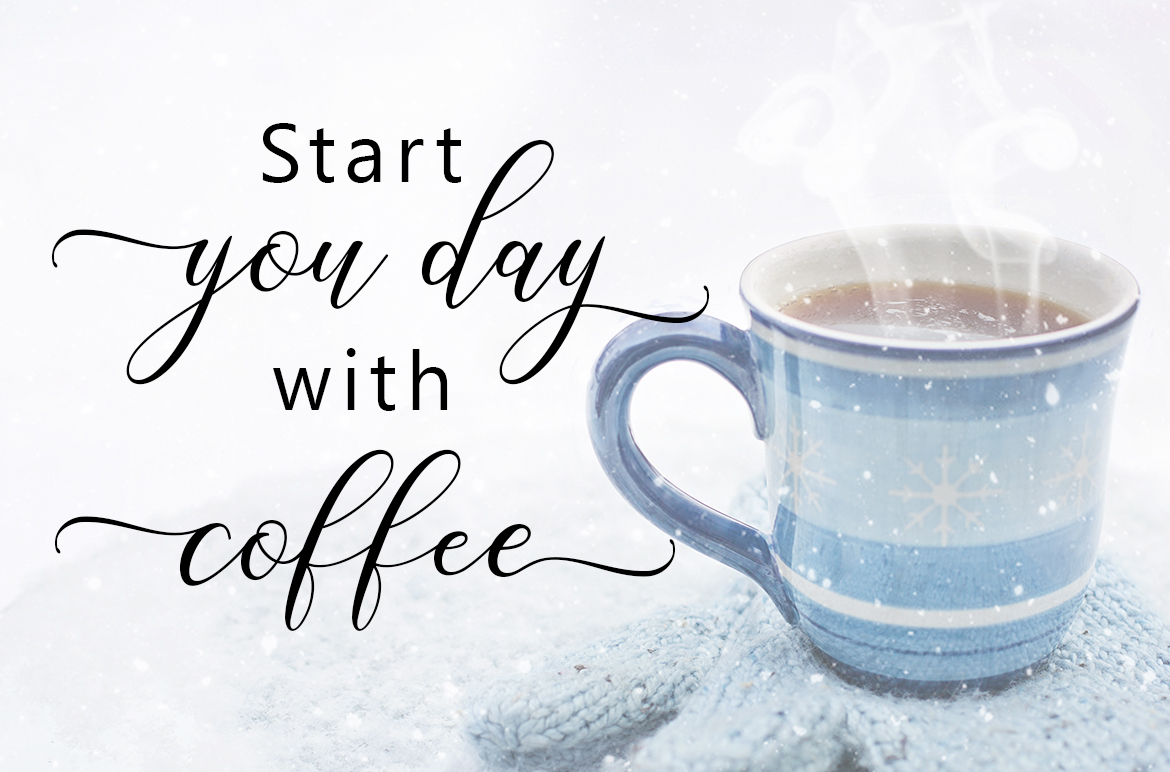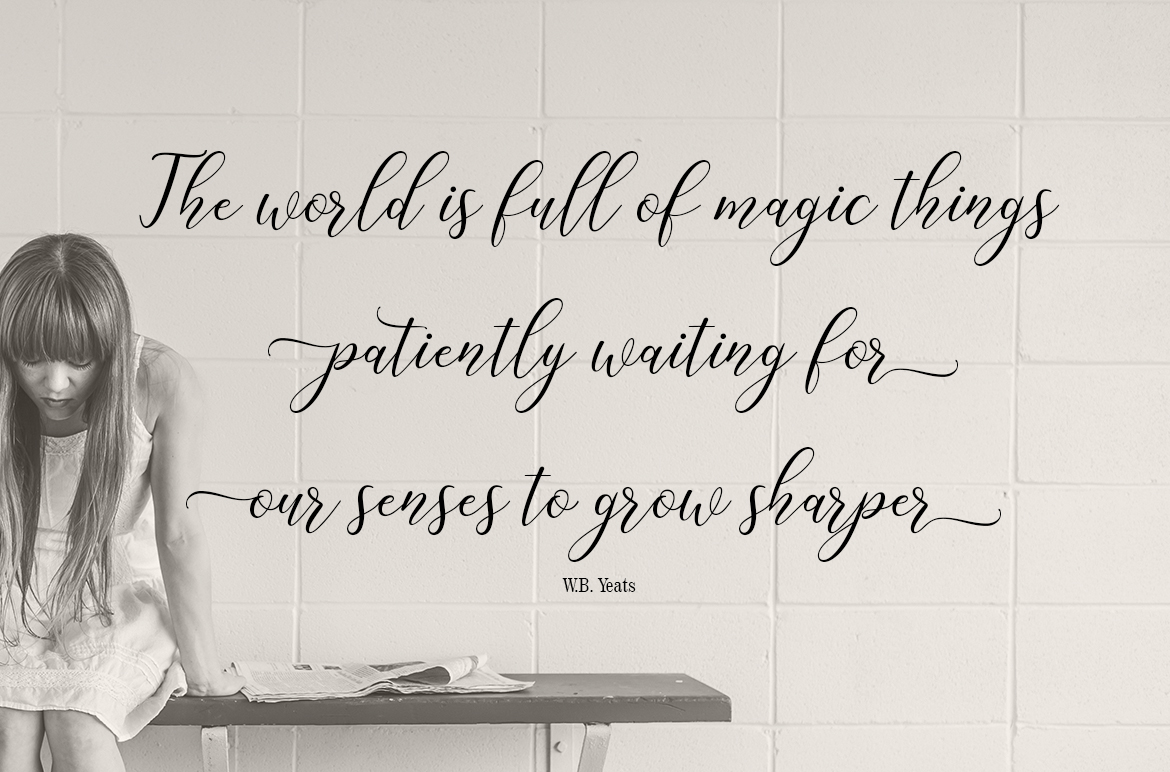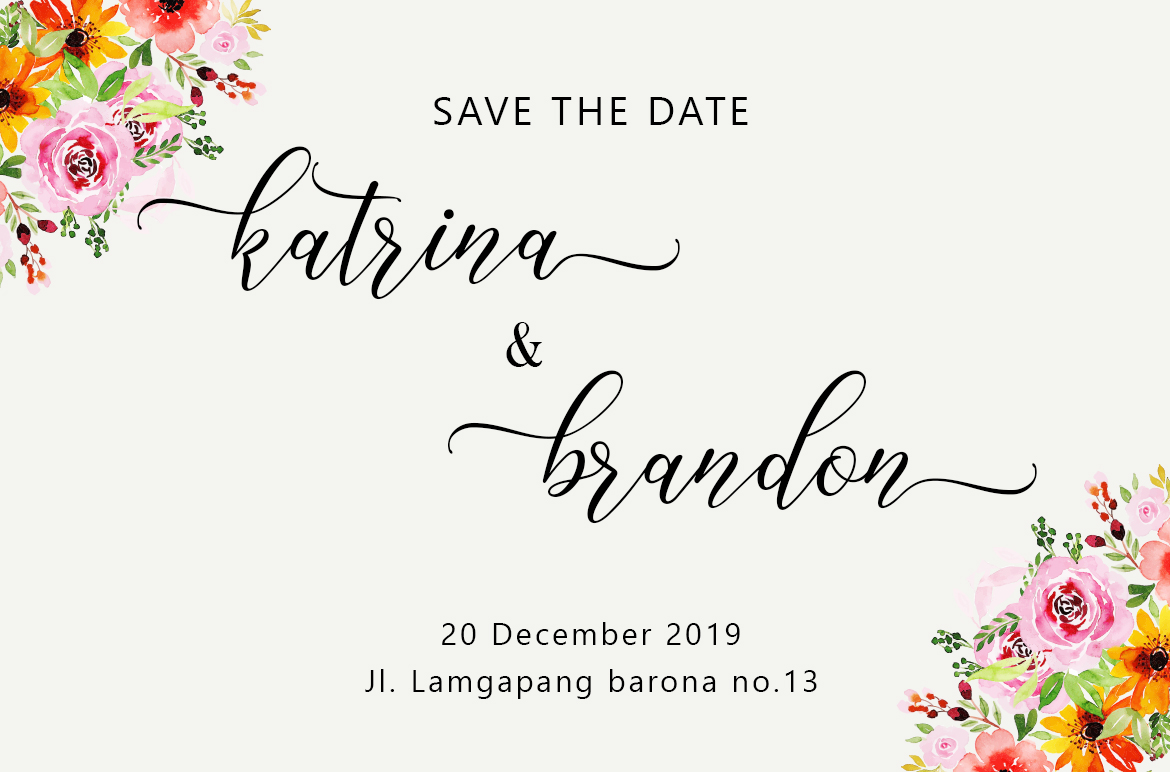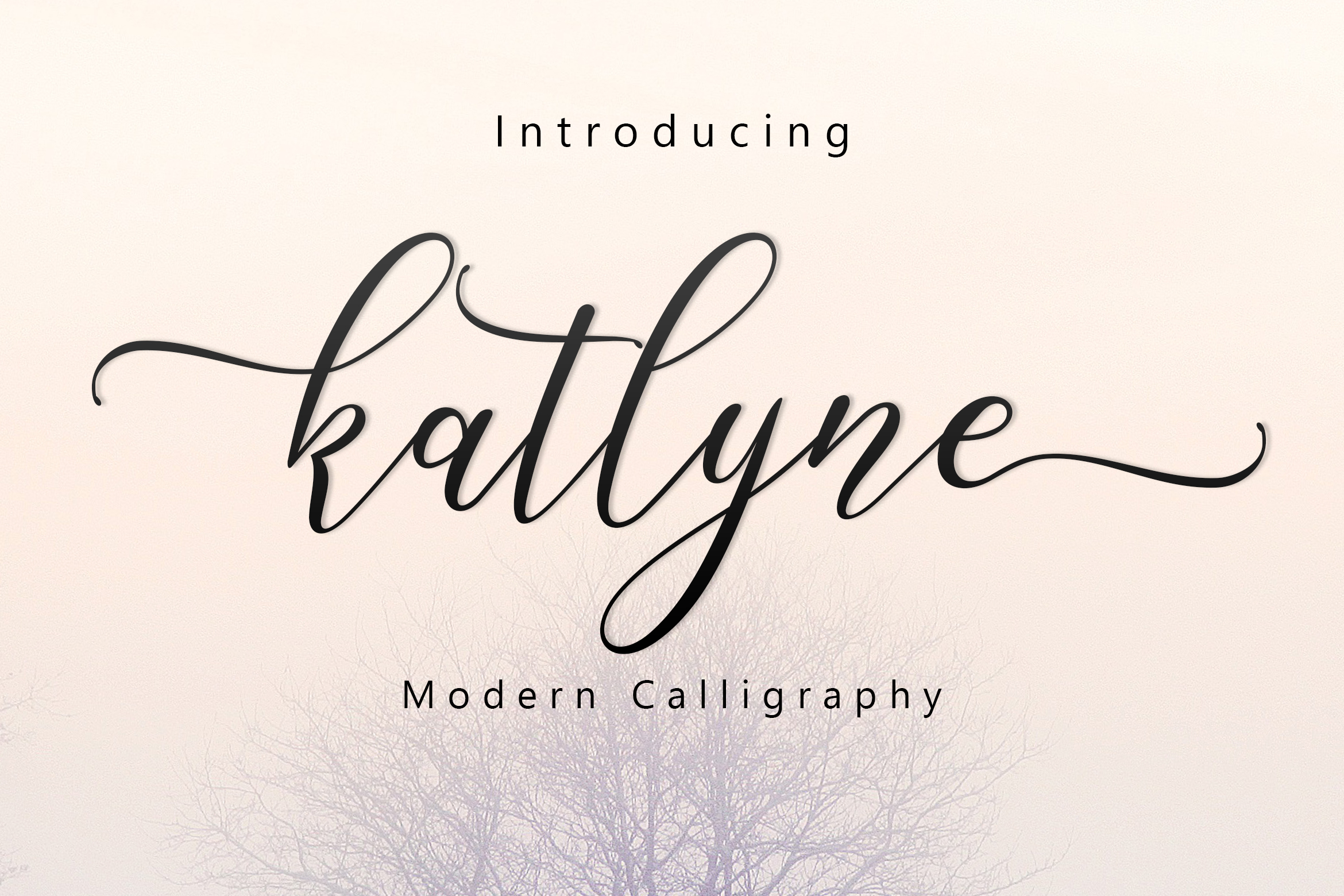
Katlyne Script Font
A fashionable and modern calligraphy font script with some fun impression 🙂 Introducing Katlyne Font. Katlyne is a handmade typeface, with cute character and a very bouncy baseline :). Katlyne Script come with 250+ glyphs. The alternative characters were divided into several Open Type features such as Swash, Stylistic Sets, Stylistic Alternates, Contextual Alternates. The Open Type features can.